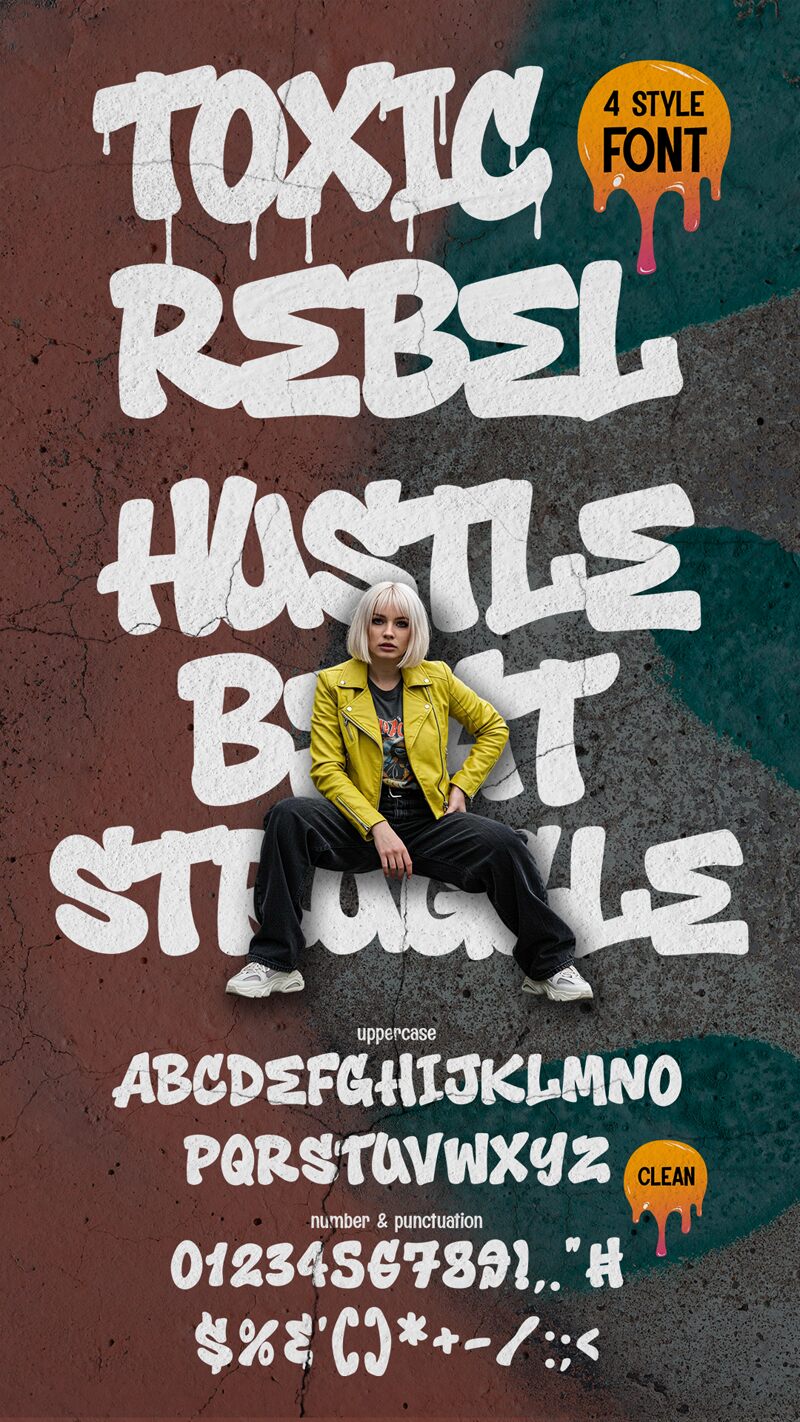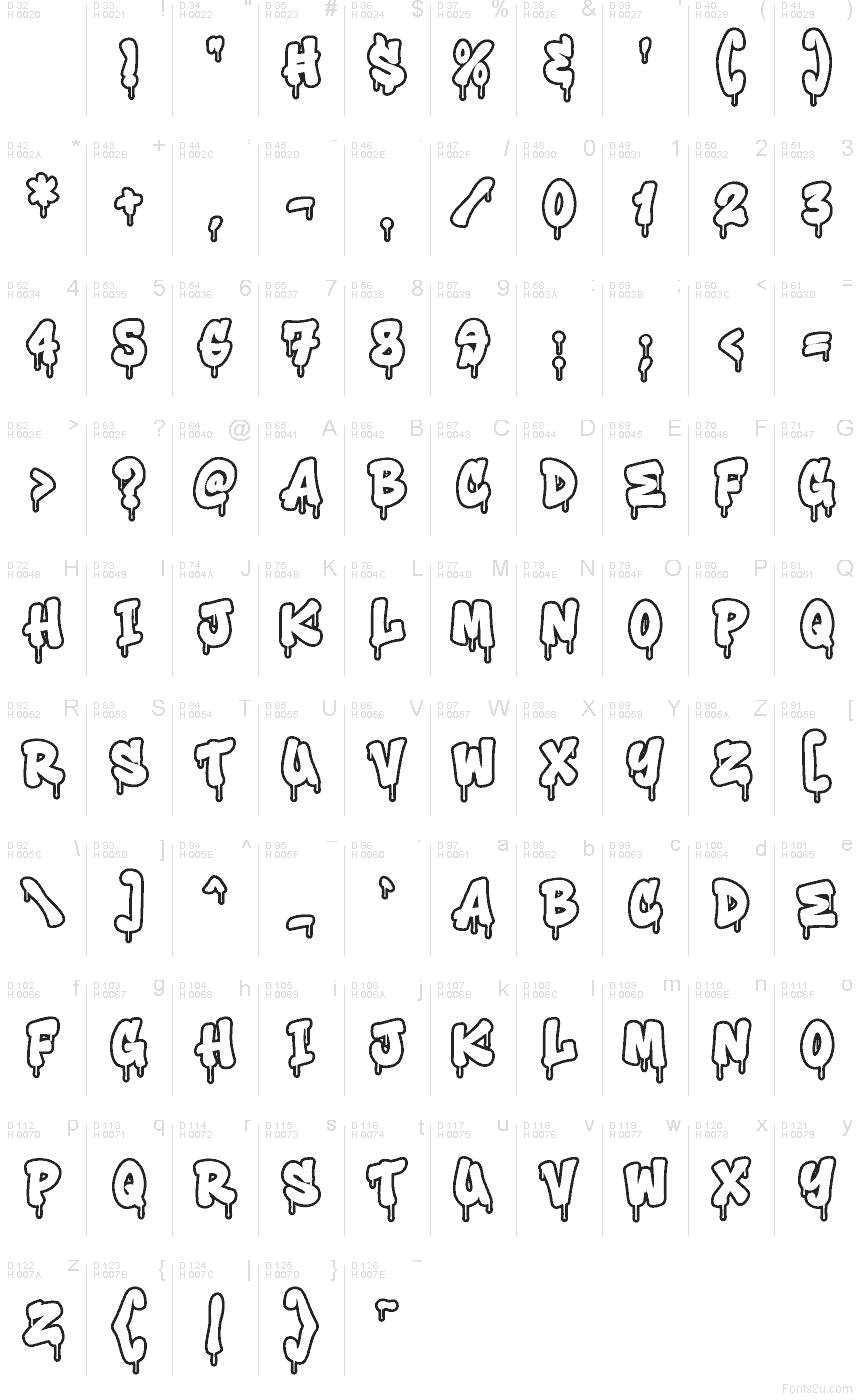
Toxic Rebel Drip Outline Outline
Toxic Rebel Drip Outline font by Muhammad Panji Ramdhani of Sipanji x Cikareotype splashes in with a juicy outline that feels like wet paint caught mid-drip. The Toxic Rebel Drip family keeps the strokes chunky and rounded, but the open interior gives it breathing room, so it stays loud without turning into a blob. It’s got that tag-on-a-concrete-wall energy—inky, messy, and confidently unruly.
Using Toxic Rebel Drip Outline, you’ll get instant attitude on streetwear logos, skate posters, mixtape covers, graffiti-themed merch, YouTube thumbnails, event flyers, and bold sticker designs. This free graffiti font shines when you size it up and let the drips hang; keep tracking slightly loose so the outline doesn’t tangle. Pair it with a clean, narrow sans for dates, credits, or a sharp tagline to balance the chaos.